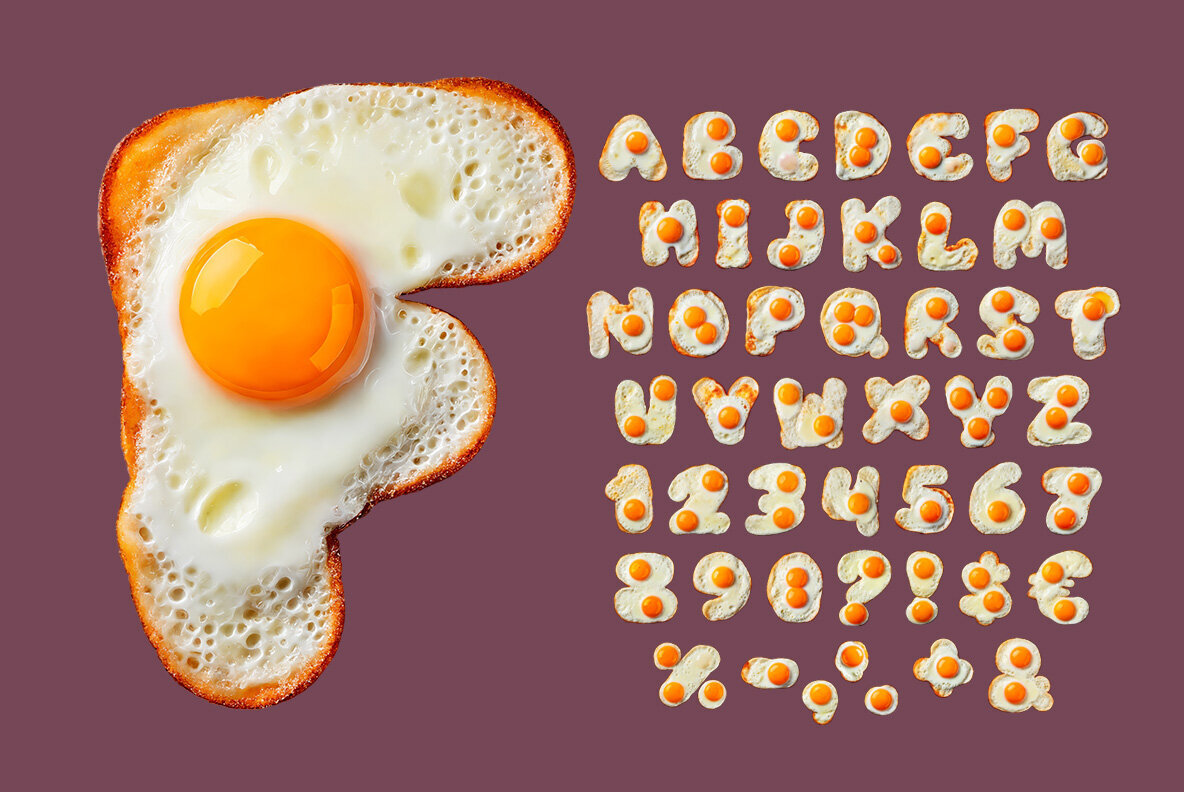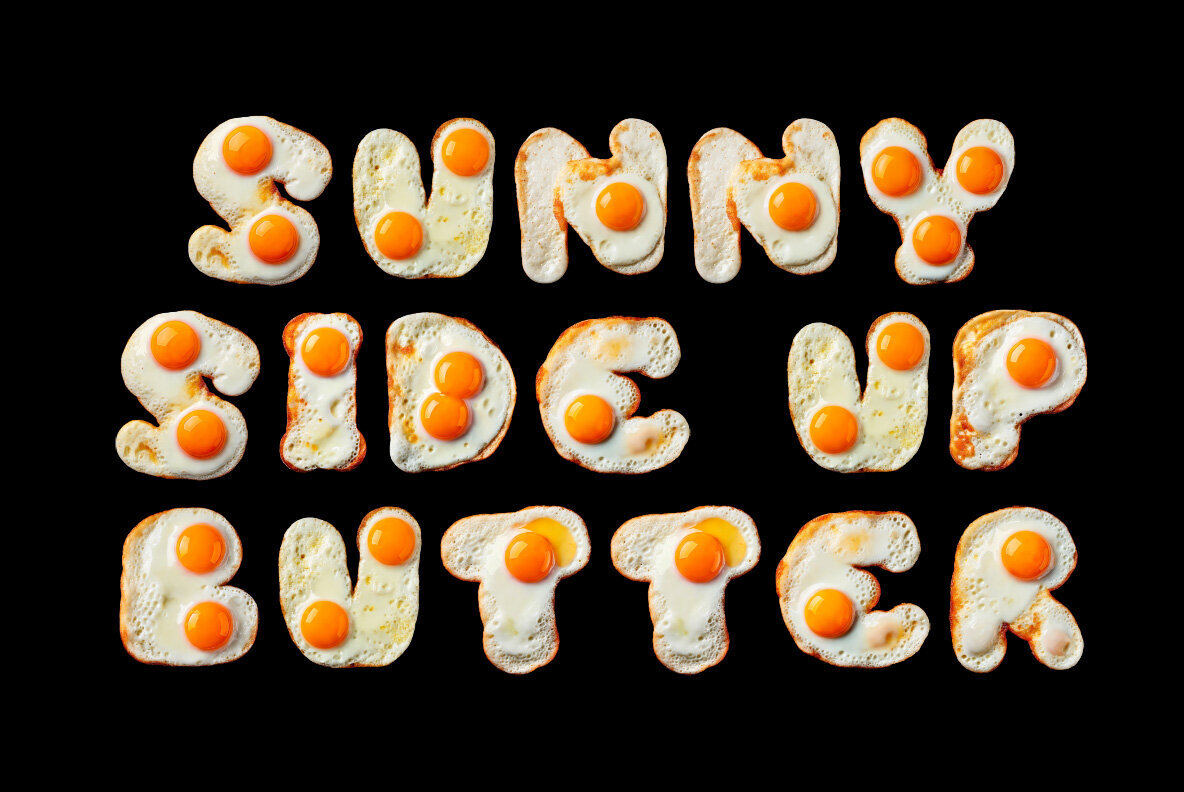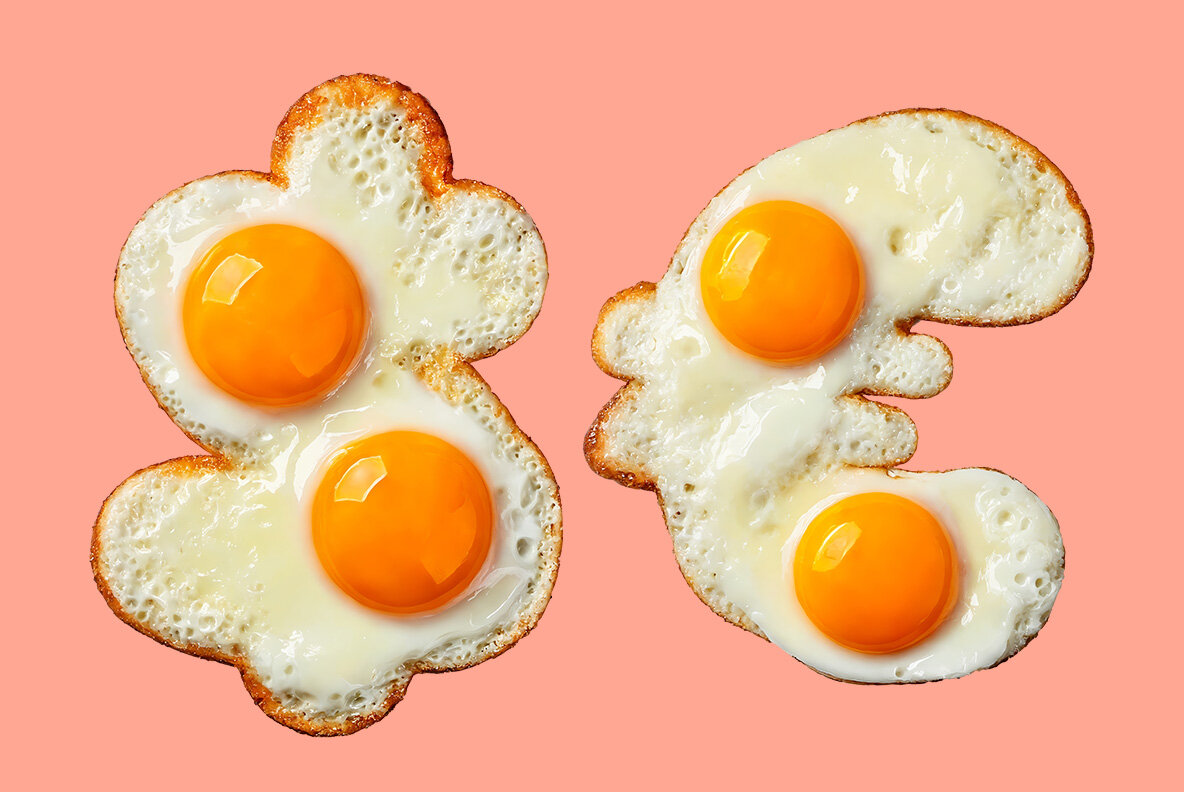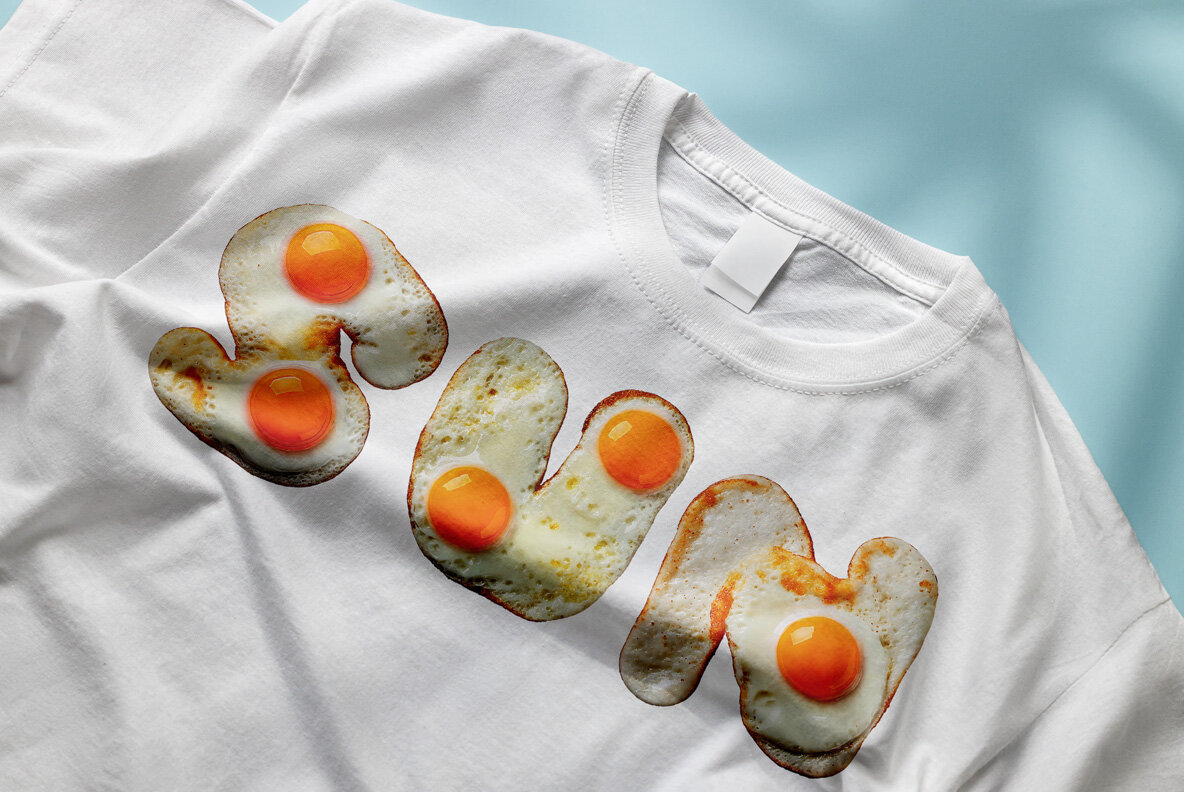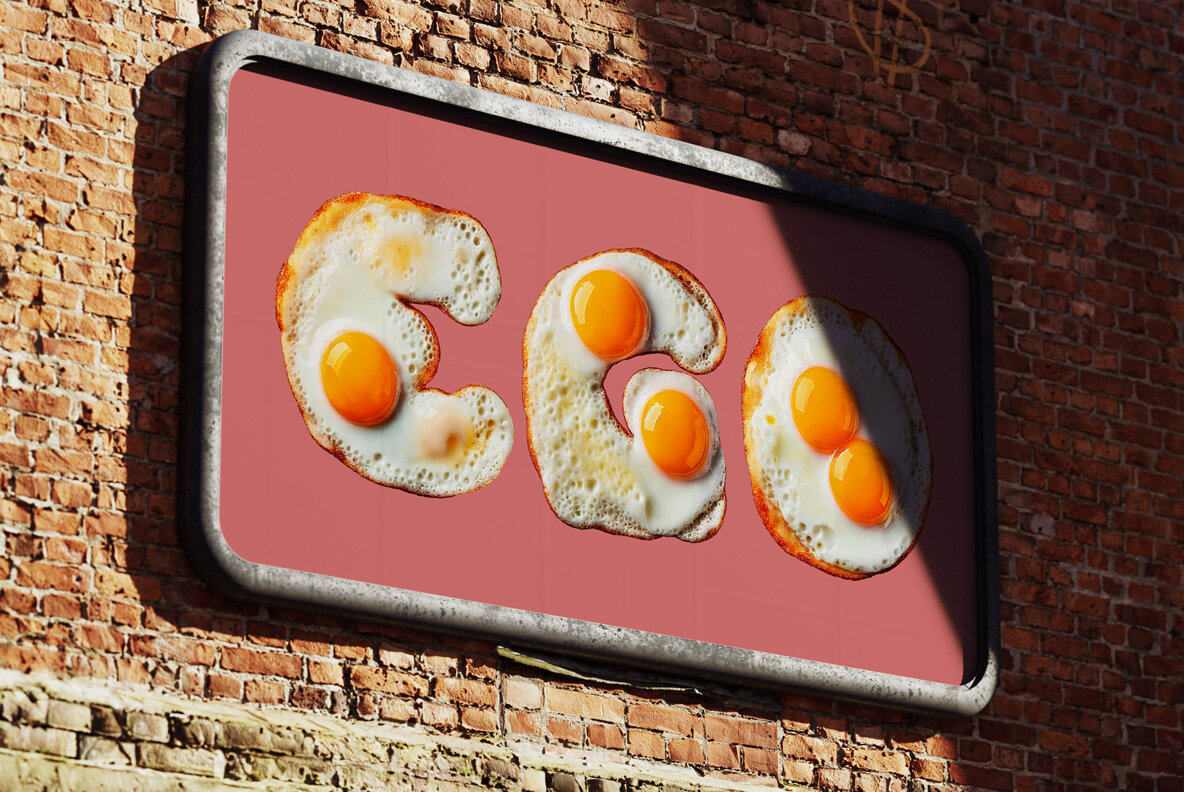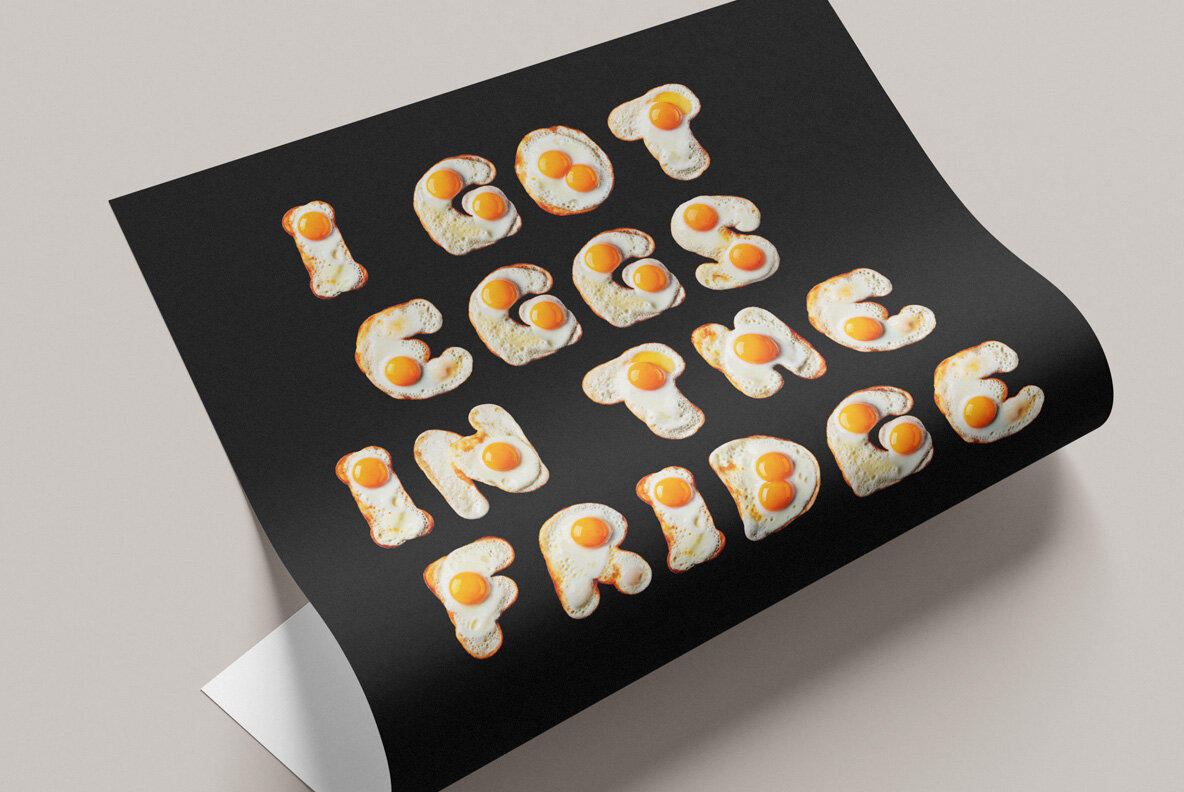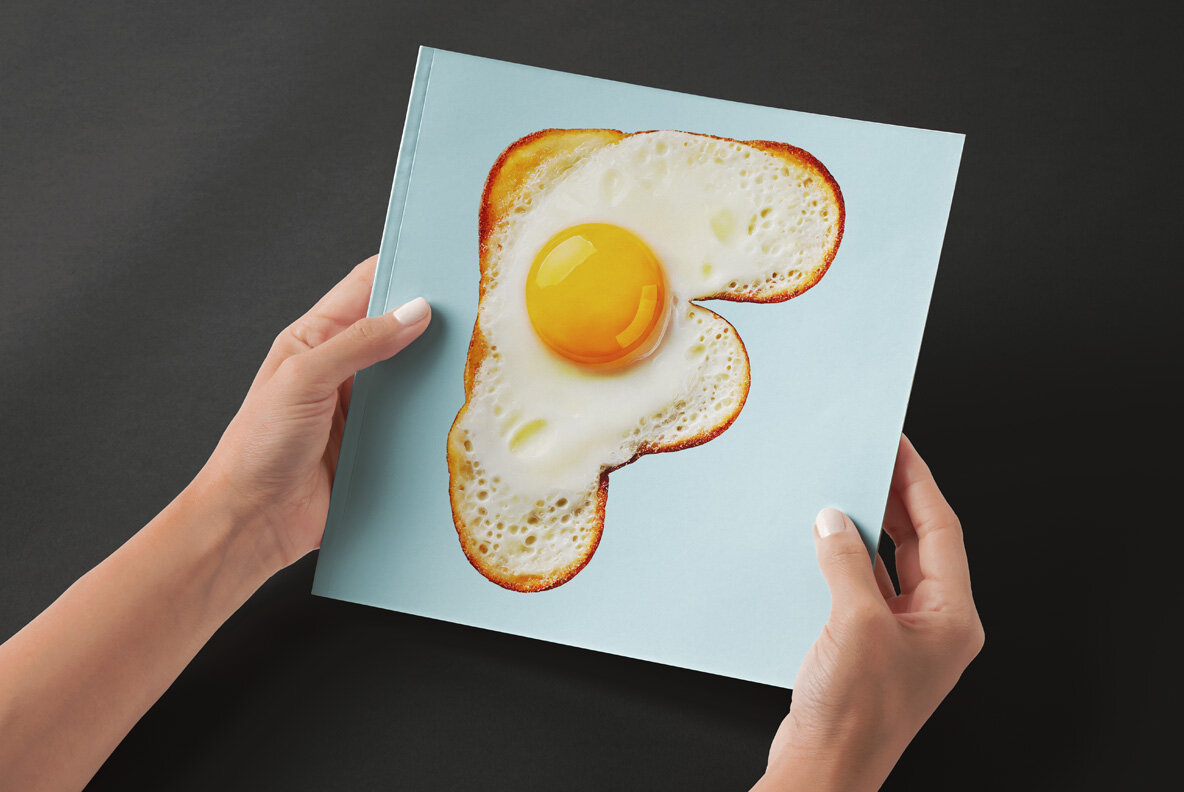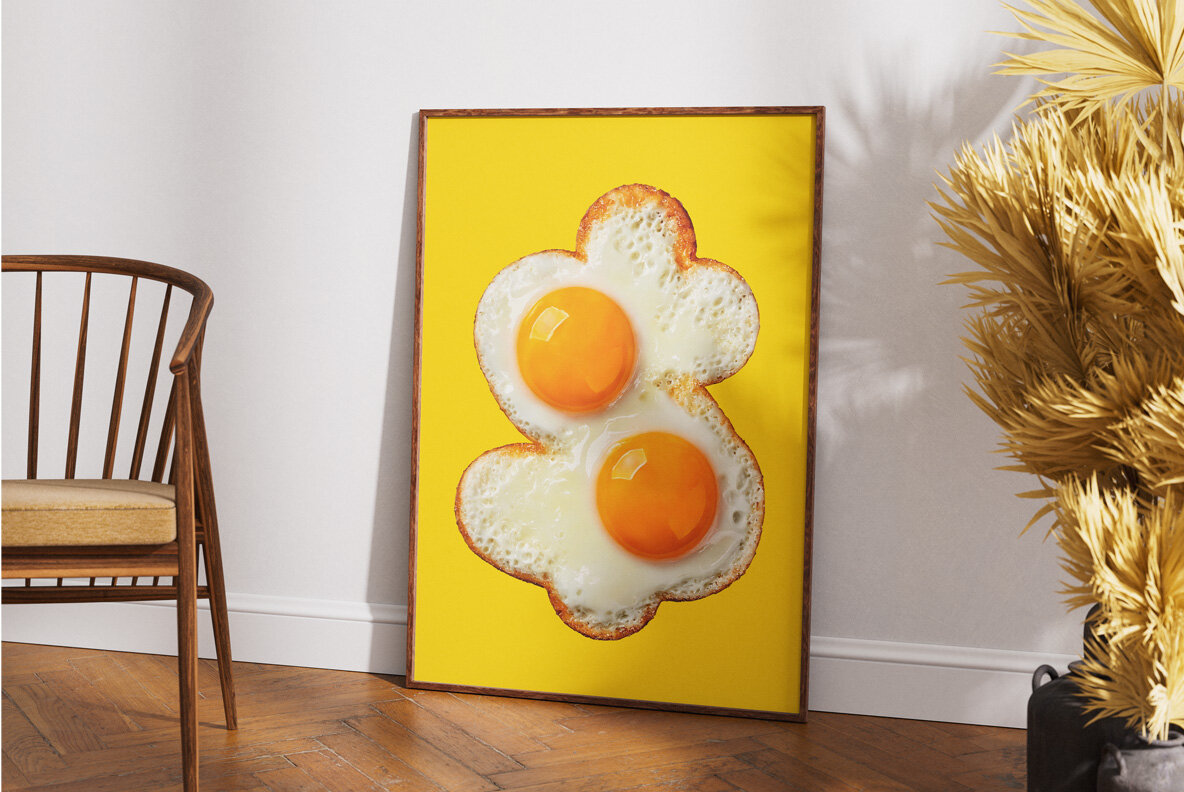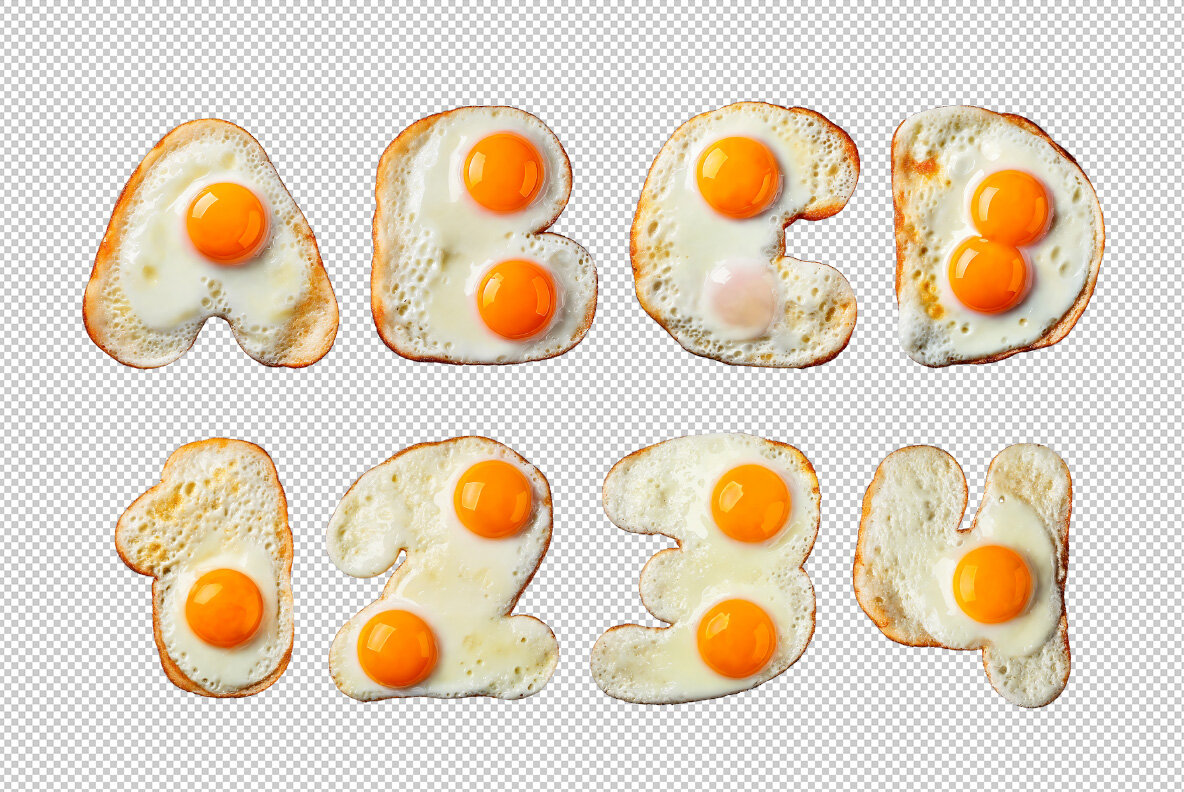
Discover the playful and unique appeal of the Fried Eggs Font, a delightful typeface inspired by everyone's favorite breakfast treat. Perfect for giving your projects a morning vibe, each letter is crafted to resemble a deliciously whimsical fried egg. This typeface is an excellent choice for food blogs, restaurant branding, or any creative endeavor that benefits from a quirky, lighthearted twist. The set includes uppercase characters, numerals, and basic punctuation, all designed to bring a fun spirit to your work.